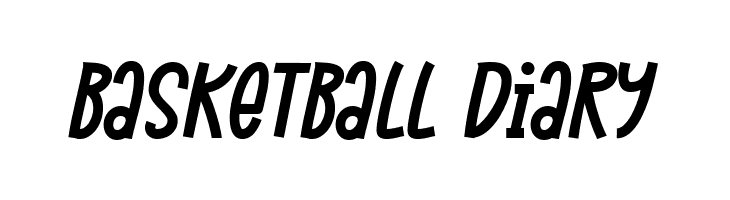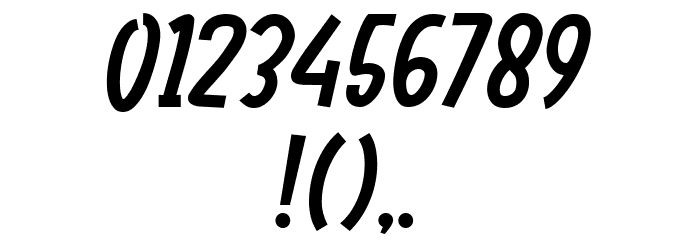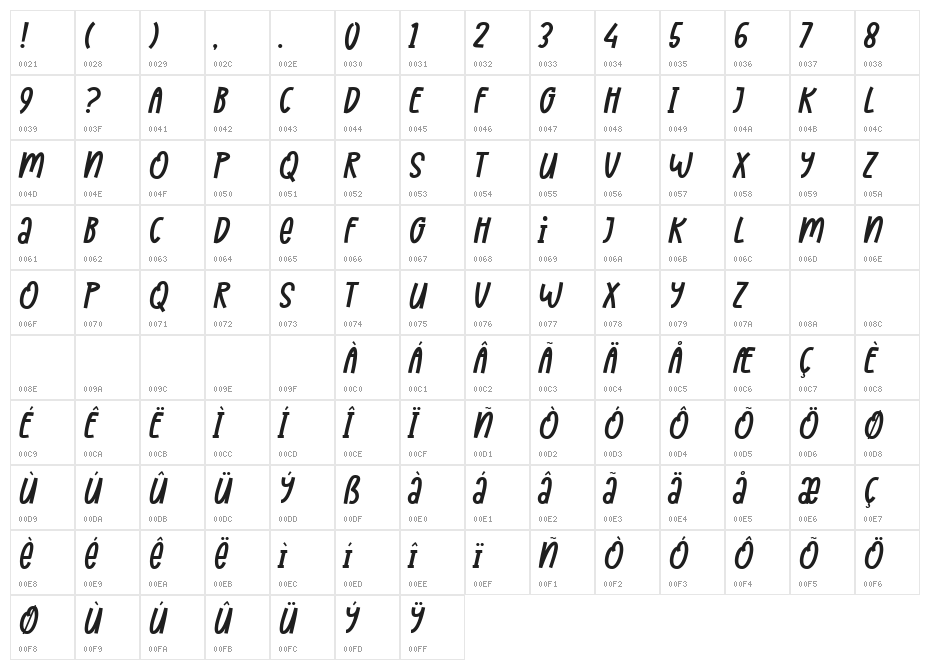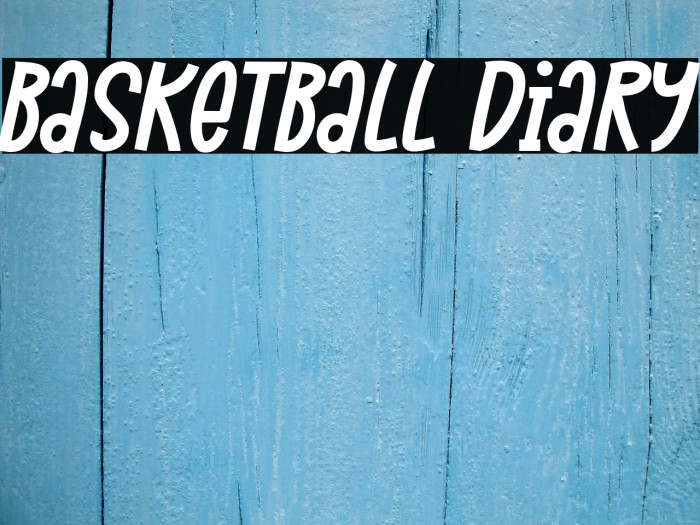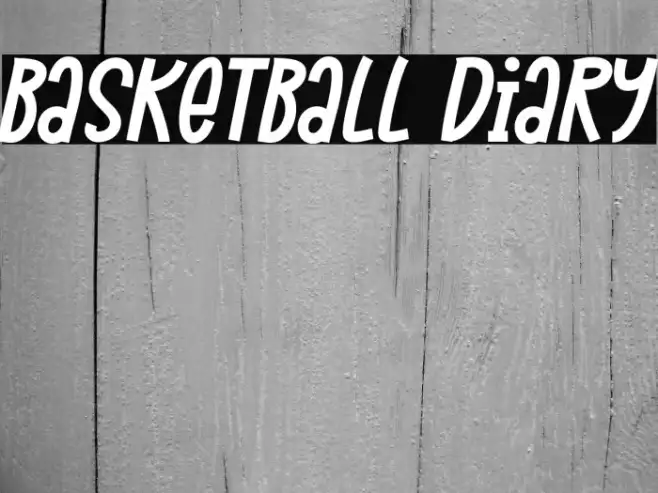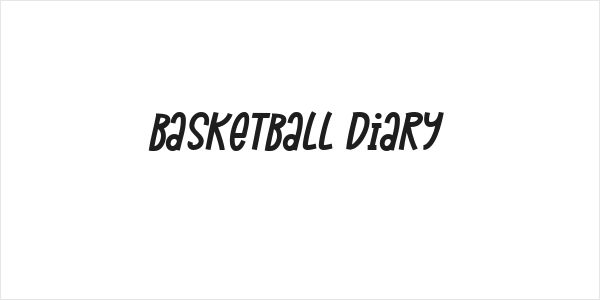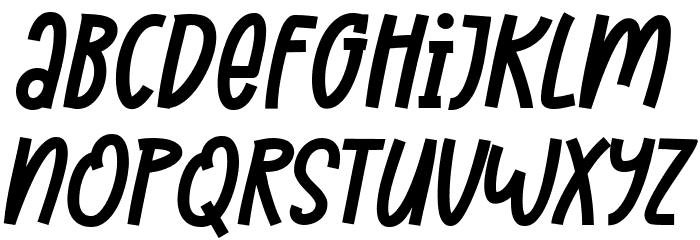
Basketball Diary Font
Basketball Diary Description
This font features a dynamic and energetic style, characterized by its bold and slightly slanted letterforms. The strokes are smooth and fluid, giving it a handwritten feel that is both playful and modern. The uppercase and lowercase letters maintain a consistent rhythm, with a slight tilt that adds to the overall movement of the text. The numbers and special characters are designed to match the lively aesthetic, making it suitable for projects that require a touch of personality and flair. The font's unique style makes it stand out, while still being legible and versatile.
| Proposed Projects | Ideal for sports-themed designs, posters, branding, and merchandise that require a dynamic and energetic look. |